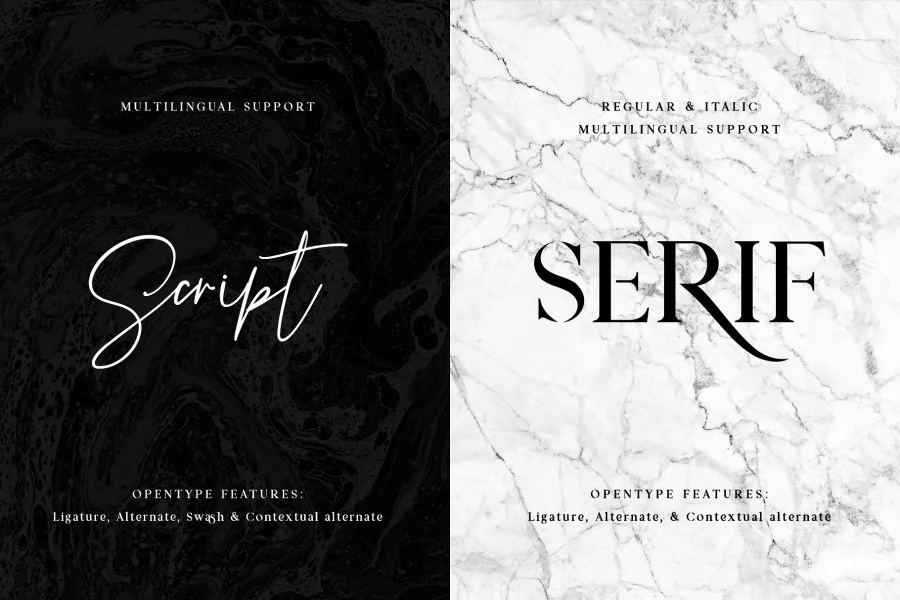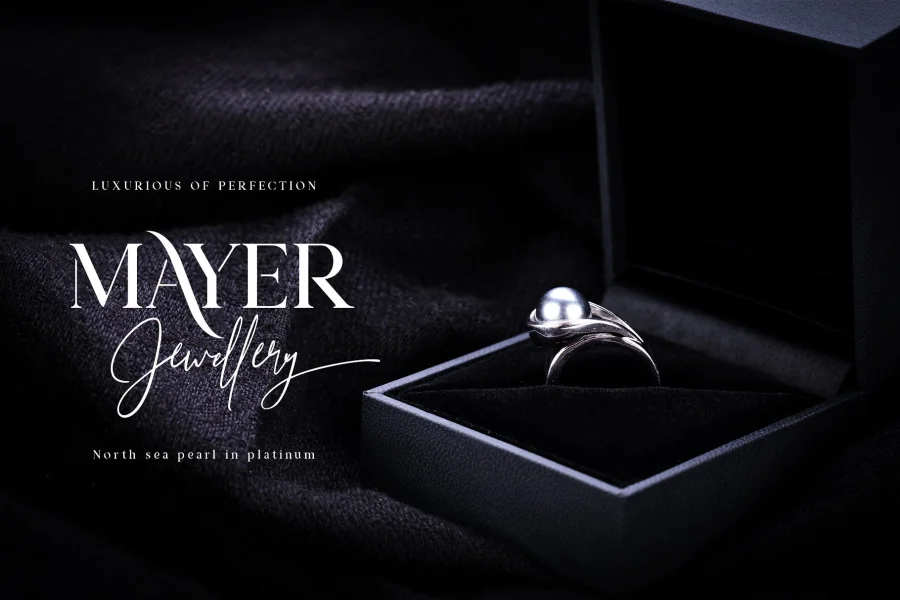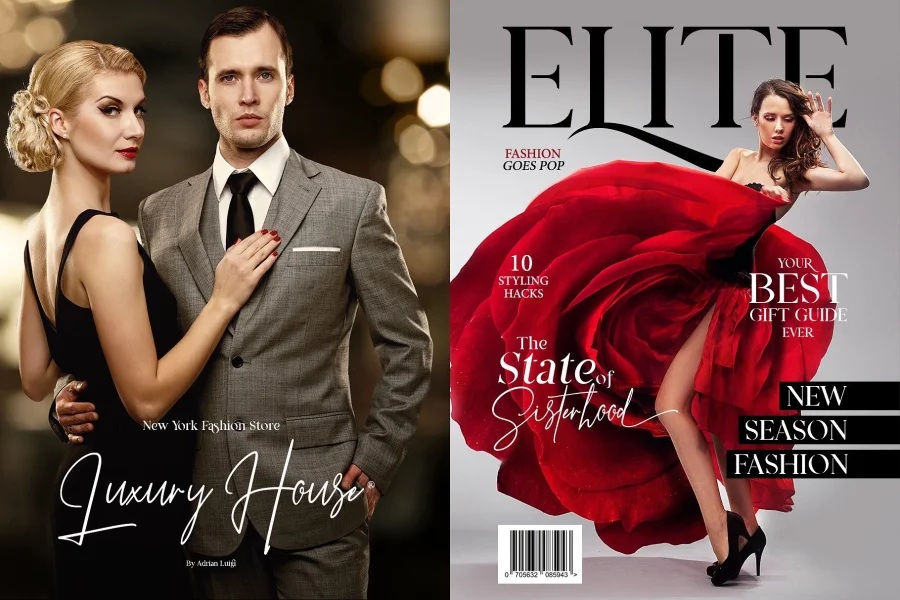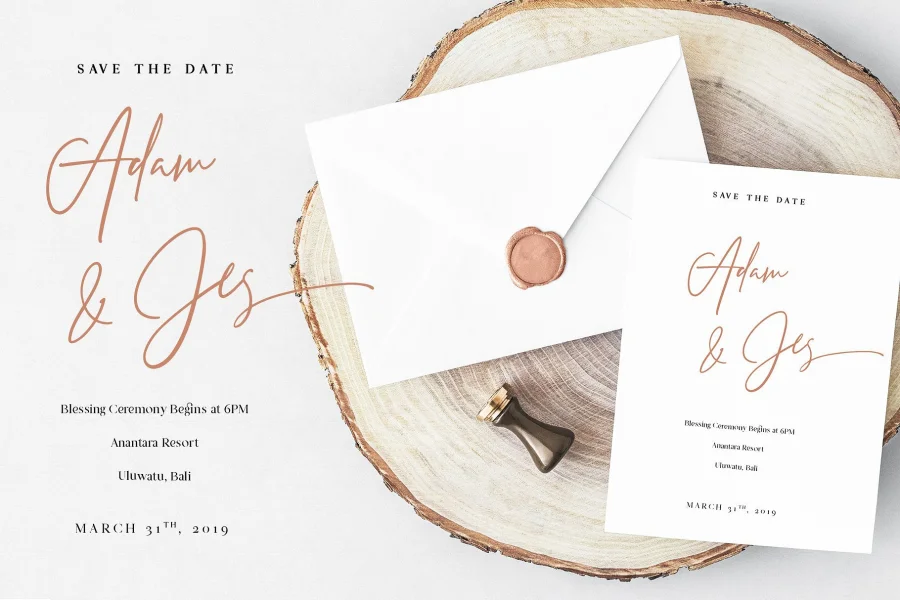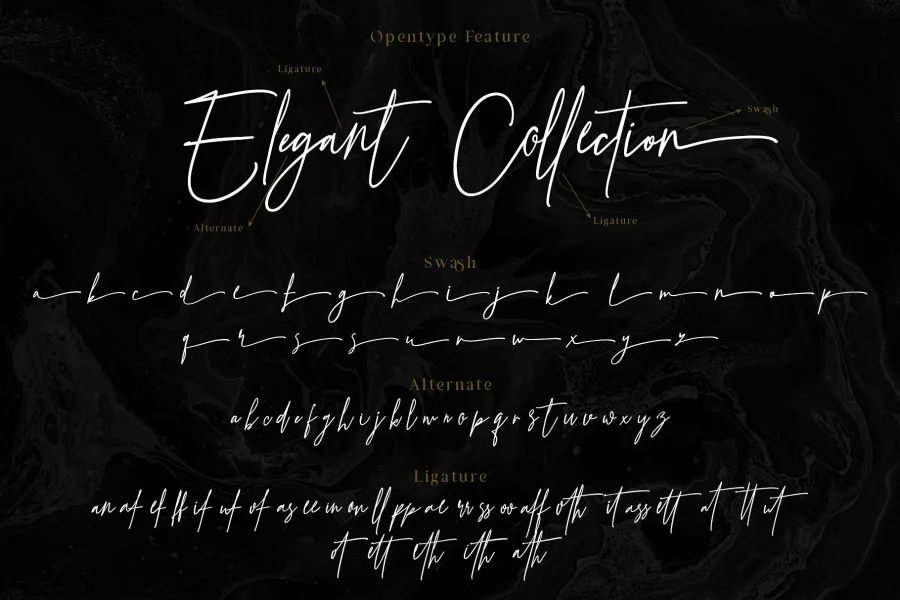
"Prestige Signature Script - Demo" is a an original type to recognize. The font contains uppercase, lowercase and numerical This font is great in logotypes and slogans. Use it as the go-to font for your business' titles.